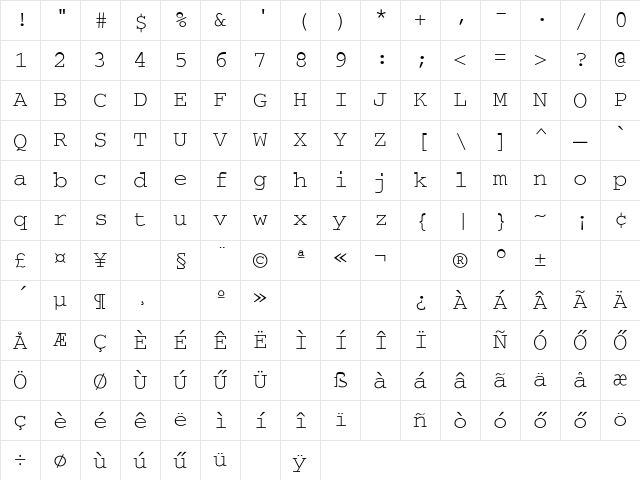
Complete HCourier Medium glyph index. Displaying only characters natively supported by HCourier Medium font.
HCourier uses fixed-width spacing throughout, giving it the structured, systematic character associated with coding environments and technical documentation.
Pro Tip: Use HCourier with slightly increased line-height for extended reading - fixed-width spacing can feel dense in longer passages without extra breathing room.